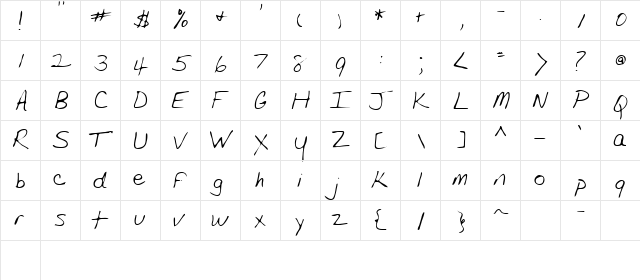
Shipper Regular Font Preview
Shipper Regular
Design Context for Shipper Typeface
Shipper is a composed and adaptable typeface that performs quietly and consistently across a wide range of design contexts.